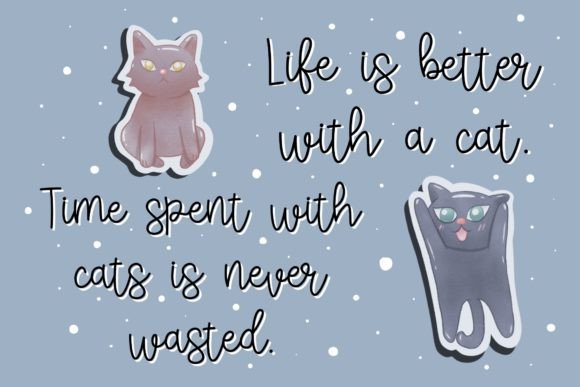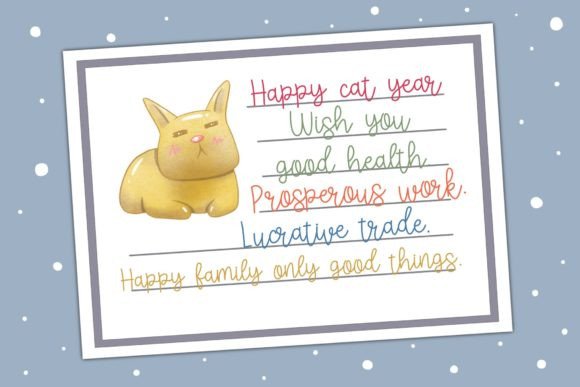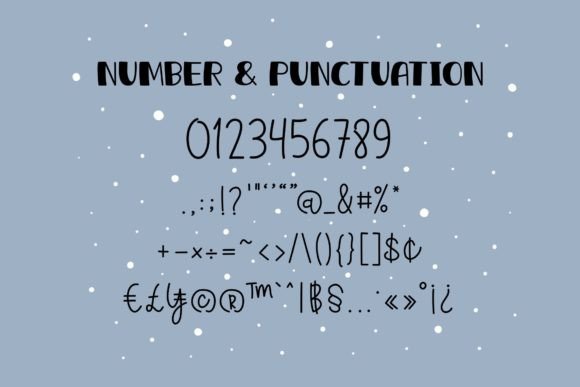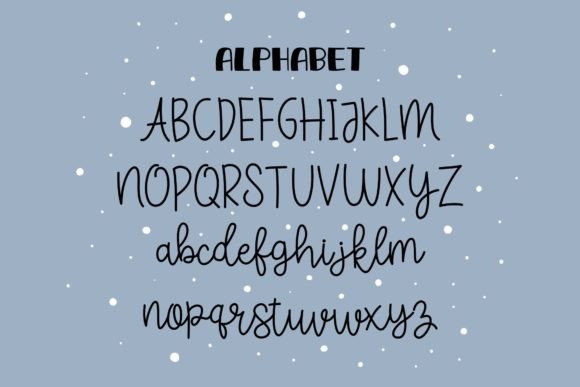
The Alexshio Font: A Simple yet Powerful Handwritten Font for Creatives
Have you ever been working on a design project, and suddenly, you’re stuck on finding the perfect font? I recall a recent experience where I was tasked with creating a logo for a client’s craft business. The client wanted a font that was clean, cute, and reflected the handmade nature of their products. After scouring through countless font libraries, I stumbled upon the Alexshio font, and it was love at first sight! ✨
An Honest Review of Alexshio Font
What I Love About Alexshio Font
- ✨ Simple and handwritten: Alexshio font has a beautiful, effortless quality to it that makes it perfect for a wide range of design projects.
- ✅ Clean and readable: The font is highly legible, even at smaller sizes, making it ideal for body text or captions.
- ✅ Cute and charming: The font’s playful personality shines through in its subtle imperfections and rounded edges.
- ✅ Highly versatile: From logos and branding to social media graphics and DIY projects, Alexshio font adapts seamlessly to different contexts.
While Alexshio font is an excellent choice for many projects, there are a few things to keep in mind: 🤔
- ⚠️ Limited character set: As a simple handwritten font, Alexshio might not have an extensive character set or advanced OpenType features.
- ⚠️ May not be suitable for body text: While readable, Alexshio font might not be the best choice for lengthy body text due to its informal, handwritten nature.
The Backstory Behind Alexshio Font
While the origins of Alexshio font are unclear, it’s likely that the designer was inspired by the beauty of handwritten letters and the need for a clean, simple font that could be used in a variety of contexts. Perhaps the designer was a fan of traditional lettering and wanted to create a digital font that captured the essence of handwritten writing. 🤔
Q: What type of projects is Alexshio font best suited for?
A: Alexshio font is perfect for logos, branding, social media graphics, crafty DIY projects, and more! Its versatility makes it a great choice for a wide range of design projects.
Q: Is Alexshio font available in different weights or styles?
A: As a simple handwritten font, Alexshio might not have multiple weights or styles. However, you can experiment with different font sizes, colors, and formatting options to achieve the desired look.